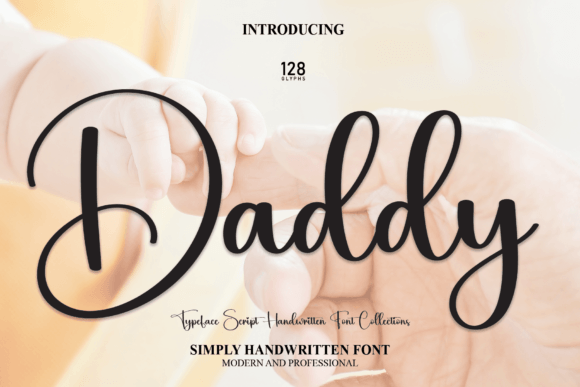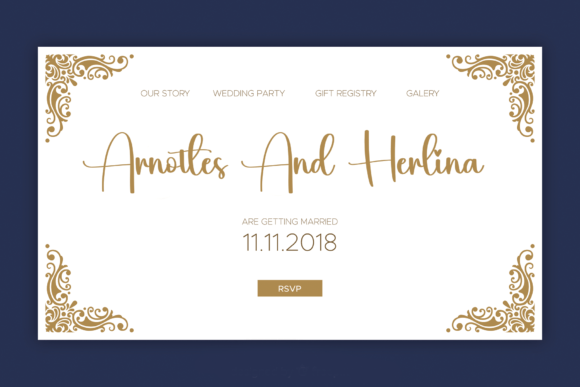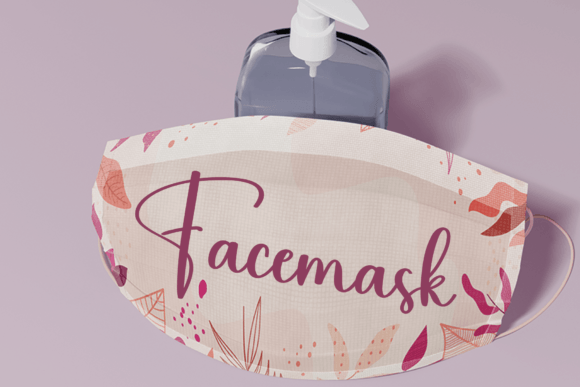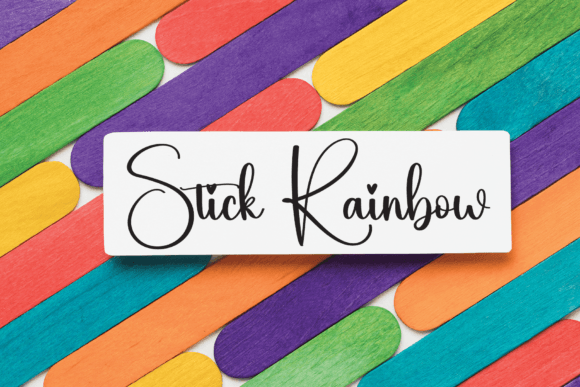
Daddy Font
About the Daddy Font
Experience the unique personality of Daddy Font, a font designed for impact. Daddy is a lovely and sweet handwritten script font. This gentle font will look gorgeous on a variety of design ideas. It will add a joyful and romantic touch to each of your projects!
Daddy’s gentle, handwritten style is ideal for projects requiring a touch of romantic charm. It excels in short text applications like logos, wedding invitations, or short quotes on social media graphics. Use it sparingly for headings or short product descriptions where its delicate nature can shine. Avoid using it for body text or lengthy paragraphs; its legibility suffers at smaller sizes.
For optimal visual harmony, pair Daddy with a clean sans-serif font like Montserrat or Open Sans for body text, providing a strong contrast and ensuring readability. Alternatively, a subtle serif like Lora could complement its handwritten feel, offering a sophisticated and cohesive pairing for projects needing more visual weight.
Daddy’s overall personality is best described as friendly and romantic, lending itself well to brands associated with warmth, intimacy, and handcrafted goods. It would be unsuitable for projects demanding a serious or corporate feel.
Daddy Font Usage Examples
Daddy Font Example